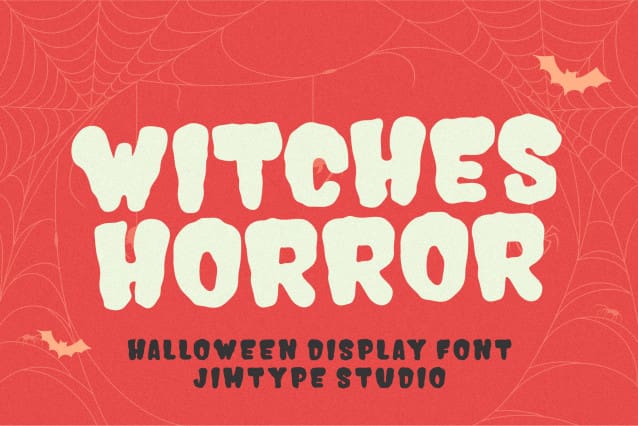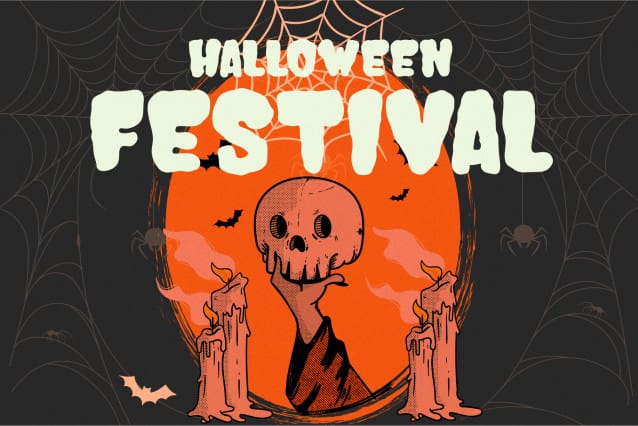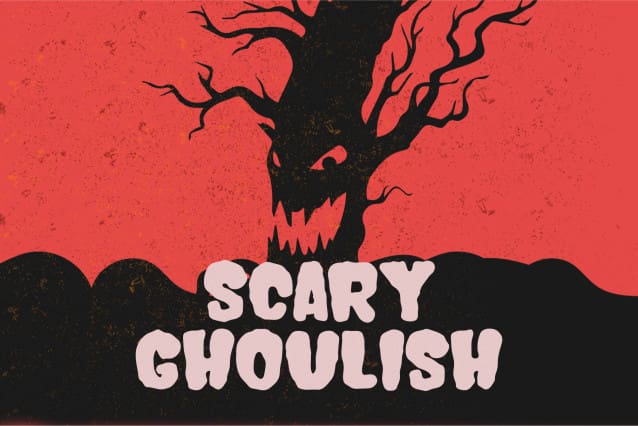
Witches Horror Font
Witches Horror Font – where Halloween meets bold elegance! This striking display font is tailored for designers and creators looking to infuse their projects with a dose of spooky sophistication. Whether you’re crafting posters, invitations, or anything in between, ‘Witches Horror‘ Font is your key to creating captivating and haunting designs. Explore our font collection today and add an enchanting twist to your next project.